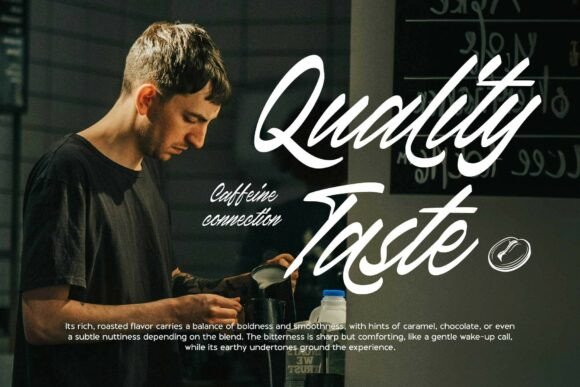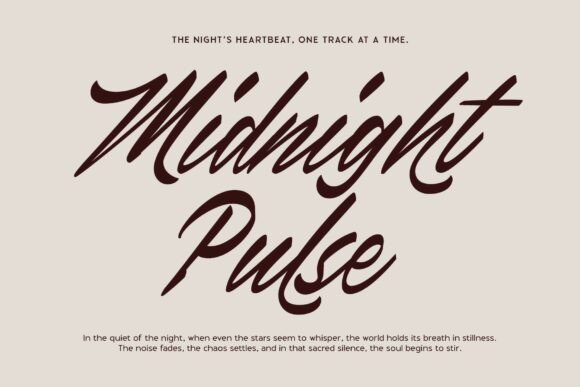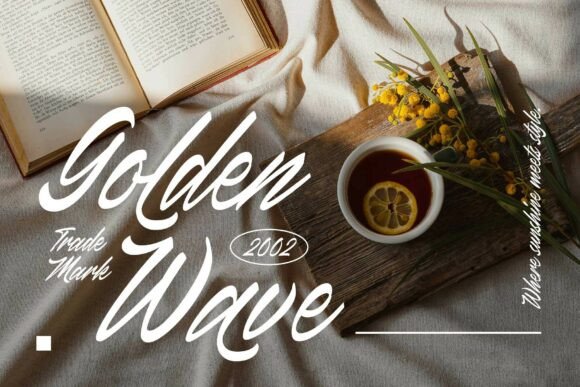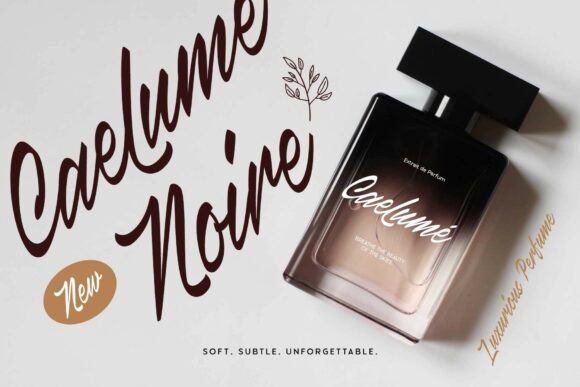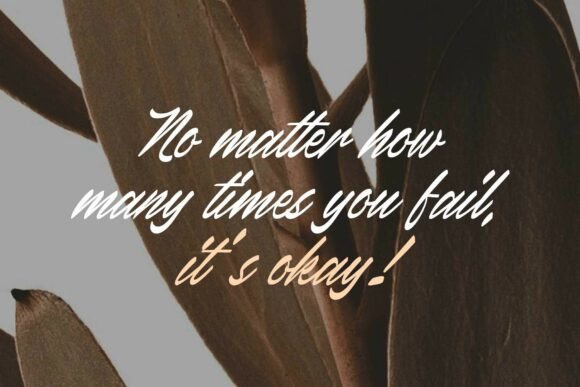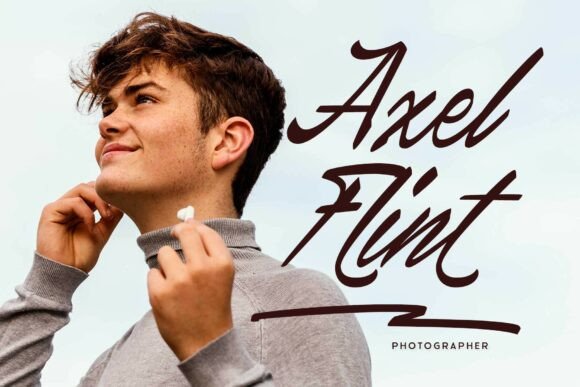
Discover the Magic of Canlord Font
Have you ever been brainstorming a creative project, and suddenly a spark of inspiration hits you? Maybe it’s the perfect idea for a logo, or the phrase that will make your audience laugh. Whatever it is, it’s moments like these that make being a designer so thrilling. But, what if you had the perfect tool to bring that idea to life?
Enter Canlord Font, a playful brush font designed to add a touch of whimsy and personality to your work. With its clean, simple lines and fun character, Canlord is the perfect companion for any creative project. Whether you’re working on a logo, branding, or packaging design, Canlord Font is sure to bring a smile to your client’s face. As a designer, you’ll appreciate the value of having a versatile font like Canlord at your fingertips.
Key Features of Canlord Font
- Unique Characteristics: Canlord Font features a unique blend of traditional and modern elements, with intricate details and ornate flourishes that set it apart from other fonts.
Designer Review: Canlord Font
As a designer, I was excited to try out the Canlord Font. Here’s my honest review:
- Unique and elegant design: Canlord Font has a distinctive aesthetic that sets it apart from other fonts.
- Highly legible: The font is easy to read, even at small sizes, making it perfect for body text.
- Well-suited for various uses: Canlord Font can be used for a wide range of applications, from headings to body text, and even for logos.
- Limited character set: Canlord Font has a limited number of characters, which may not be suitable for languages that require a large character set.
- May not be suitable for display headings: While Canlord Font is great for body text, it may not be the best choice for display headings due to its relatively small x-height.
- May require adjustments for certain languages: The font may require adjustments for languages that use non-Latin scripts or have unique character sets.
Overall, I think Canlord Font is a great addition to any designer’s toolkit. While it has some limitations, its unique design and high legibility make it a great choice for body text and other applications. With some adjustments and careful consideration, it can also be used for display headings and other uses. I would definitely recommend giving it a try!
Getting the Most Out of Canlord Font
To get the most out of Canlord Font, try the following tips:
– Use Canlord Font in conjunction with other fonts for a unique and visually appealing design.
– Experiment with different font sizes and colors to add emphasis and hierarchy to your design.
– Use Canlord Font for headings and titles to add a touch of elegance and sophistication.
Canlord Font is suitable for a variety of designs, including:
– Event and conference materials
– Luxury and high-end products
Great Vibes compares to Canlord Font as it is more cursive and script-based, whereas Canlord Font is more clean and minimalistic. Great Vibes is ideal for designers who want to add a sense of personality and flair to their designs.